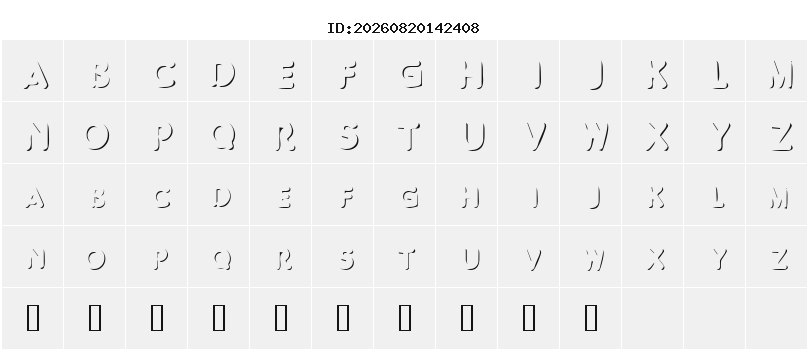
• Font Name: Shadow Land
• Full Font Name: Shadow Land Normal
About Shadow Land.ttf
Shadow Land.ttf is a modern, elegant sans-serif font designed for ultimate readability and visual harmony. Perfect for branding, headlines, web design, and print materials.